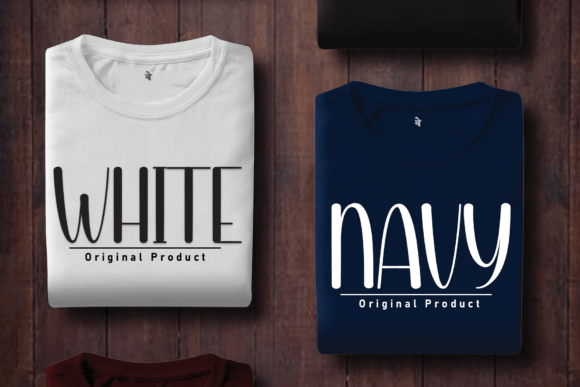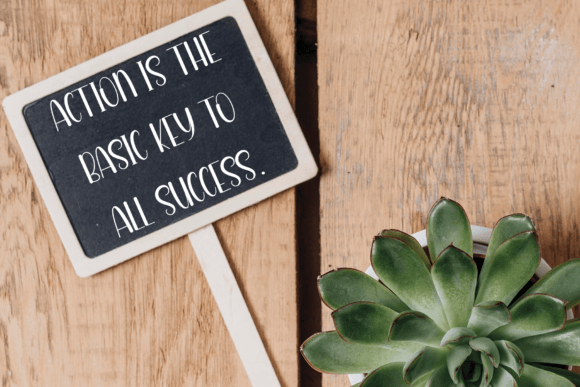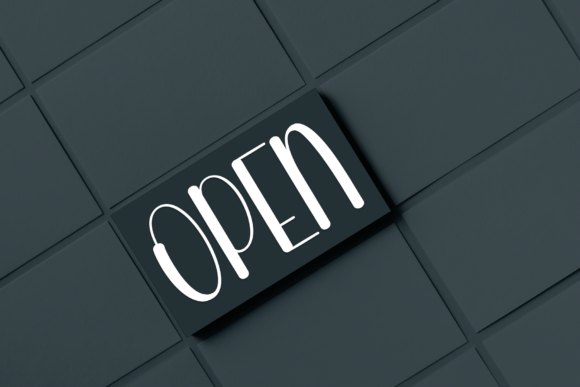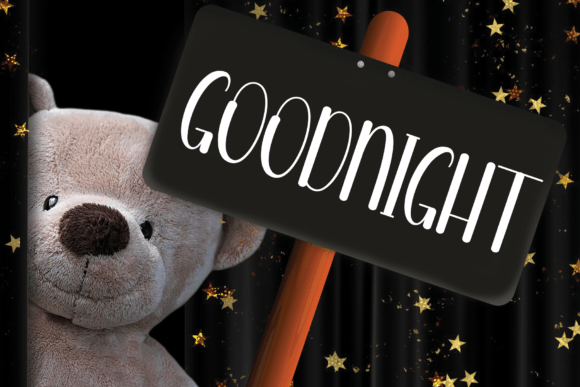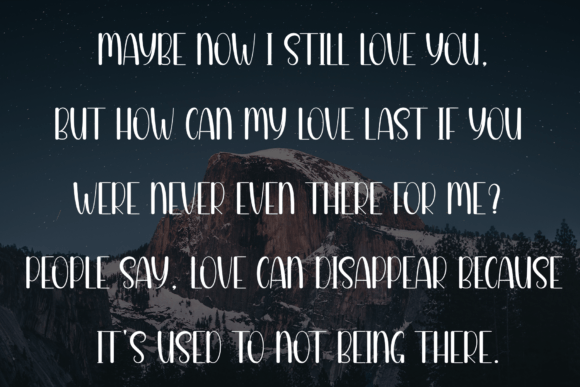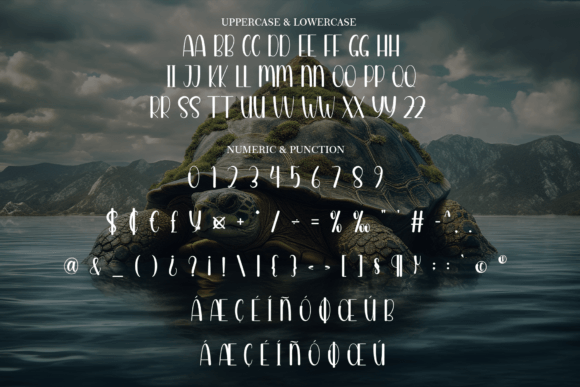
Introducing Gigantic Font: The Sweet and Friendly Handwritten Display Font
Are you looking for a font that can add a touch of whimsy and fun to your designs? Look no further than Gigantic Font! This sweet and friendly handwritten display font is perfect for creating eye-catching wedding invitations, cards, and other designs that require a playful twist. In this article, we’ll dive into the features and benefits of Gigantic Font, and explore how you can use it to take your designs to the next level.
What is Gigantic Font?
Gigantic Font is a beautiful, handwritten display font that is designed to bring a smile to your face. With its cute and fun lettering style, it’s ideal for adding a personal touch to your designs. Whether you’re a designer, crafter, or DIY enthusiast, Gigantic Font is the perfect choice for creating unique and eye-catching projects.
Key Features of Gigantic Font
- Handwritten style: Gigantic Font features a beautiful, handwritten style that is both sweet and friendly.
- Cute and fun: This font is designed to add a touch of whimsy and fun to your designs, making it perfect for projects that require a playful twist.
- Display font: Gigantic Font is a display font, making it perfect for headlines, titles, and other design elements that need to make a statement.
- Easy to read: Despite its playful style, Gigantic Font is easy to read, making it perfect for use in wedding invitations, cards, and other designs where legibility is important.
Uses for Gigantic Font
Gigantic Font is a versatile font that can be used in a variety of design projects, including:
- Wedding invitations: Add a touch of whimsy and romance to your wedding invitations with Gigantic Font.
- Cards: Create fun and playful cards for birthdays, holidays, and other special occasions with Gigantic Font.
- DIY projects: Use Gigantic Font to add a personal touch to your DIY projects, such as scrapbooking, journaling, and crafting.
- Signs and posters: Gigantic Font is perfect for creating eye-catching signs and posters for events, sales, and promotions.
Tips for Using Gigantic Font
Here are a few tips for getting the most out of Gigantic Font:
- Use it sparingly: Gigantic Font is a display font, so it’s best to use it sparingly to make a big impact.
- Pair it with other fonts: Experiment with pairing Gigantic Font with other fonts to create a unique and eye-catching design.
- Experiment with colors: Gigantic Font looks great in a variety of colors, so don’t be afraid to experiment and find the perfect hue for your design.
Gigantic Font is a sweet and friendly handwritten display font that is perfect for adding a touch of whimsy and fun to your designs. With its cute and playful lettering style, it’s ideal for use in wedding invitations, cards, DIY projects, and other designs that require a personal touch. Whether you’re a designer, crafter, or DIY enthusiast, Gigantic Font is a great choice for creating unique and eye-catching projects.